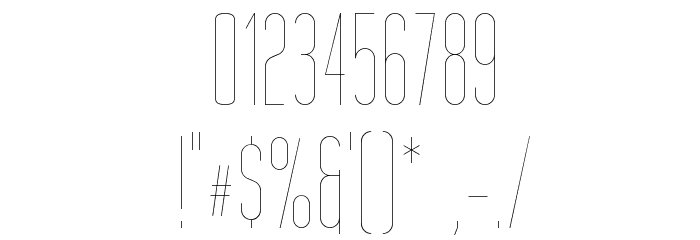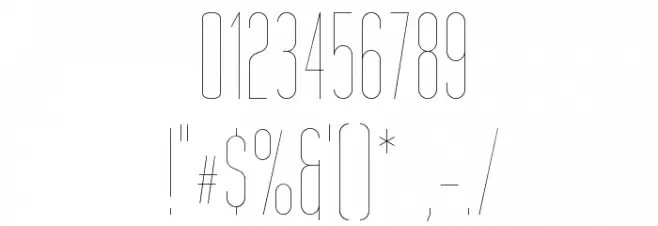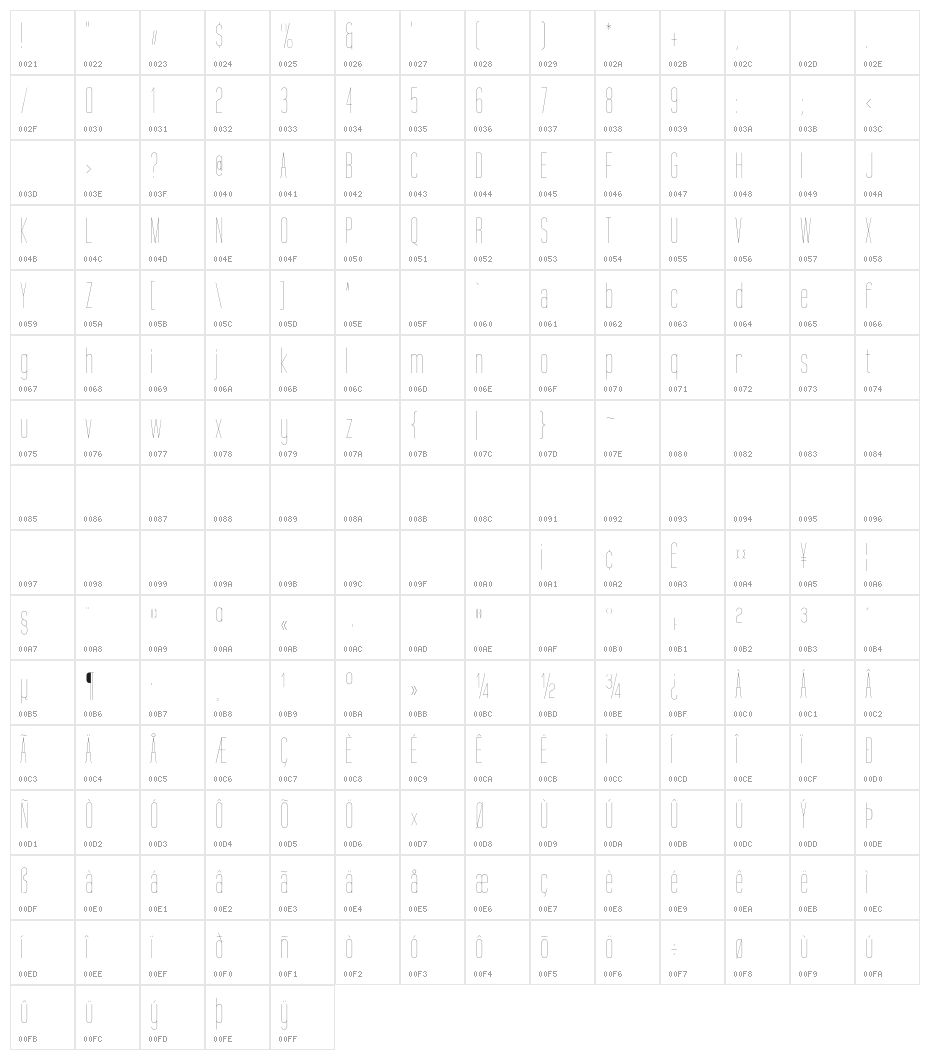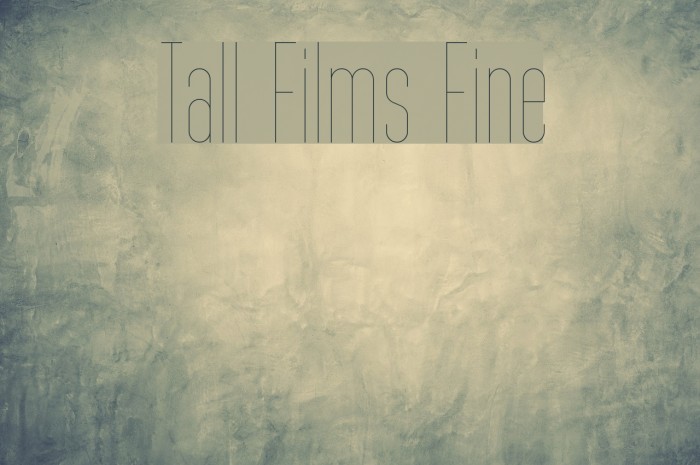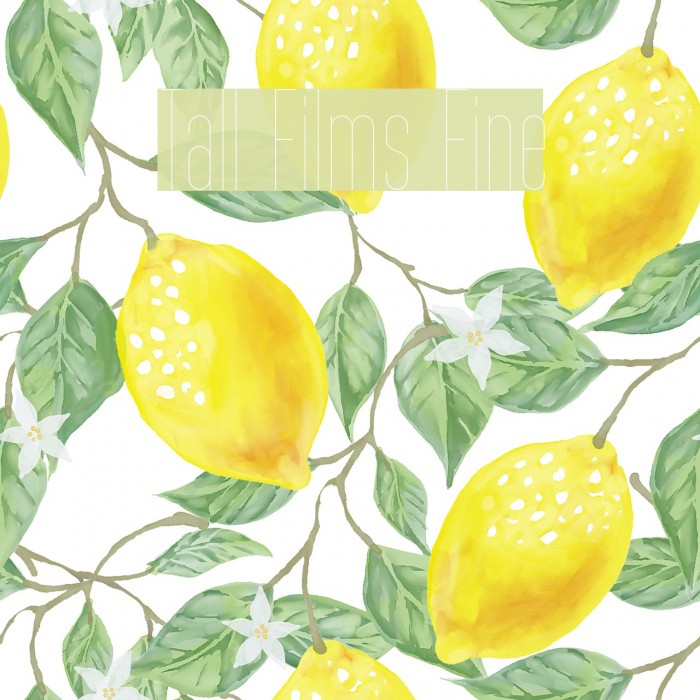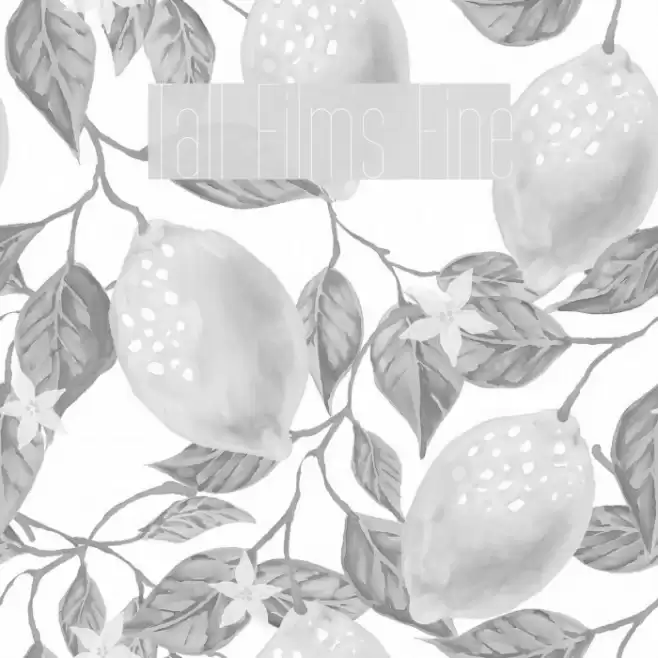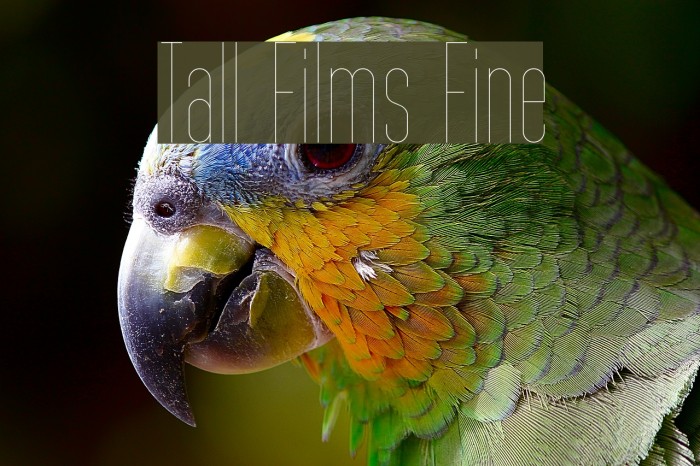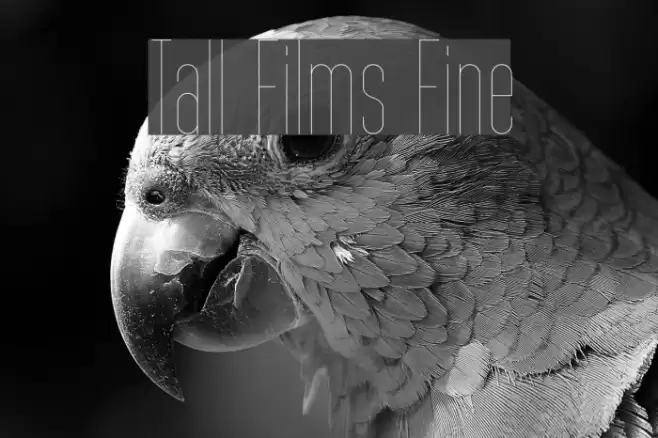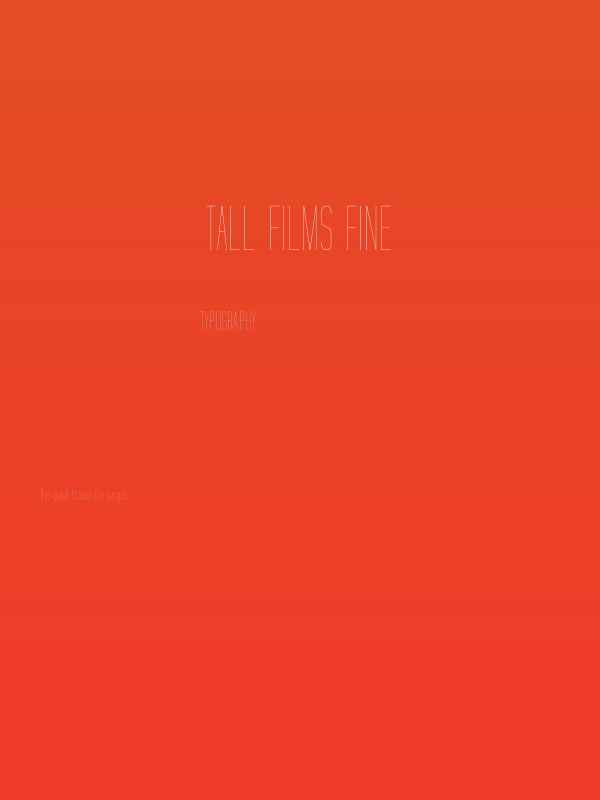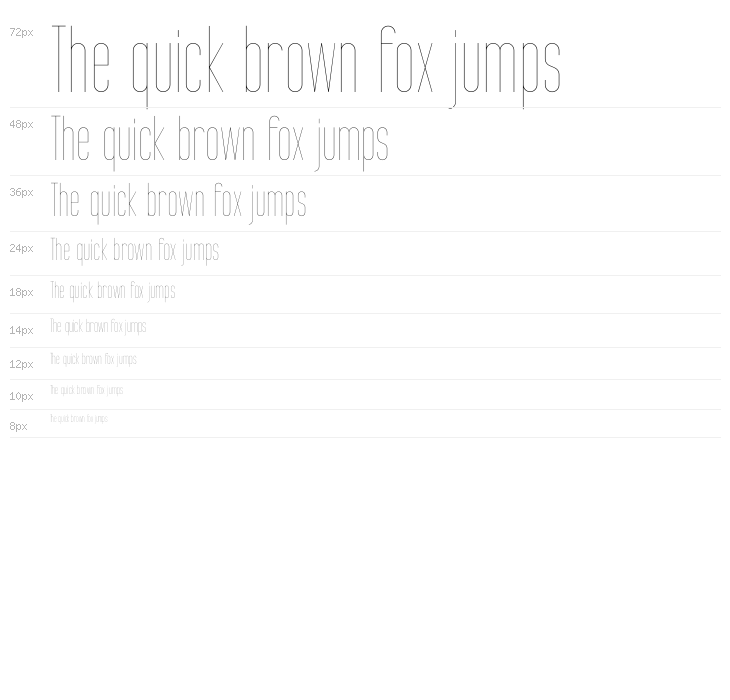
Tall Films Fine Font
Tall Films Fine Description
This font features an ultra-thin and elongated design, characterized by its tall, narrow letters that convey a sense of elegance and modernity. The uppercase and lowercase letters maintain a consistent height, creating a uniform appearance. The numerals and special characters are designed to match the slender and sleek style of the alphabet, ensuring a cohesive look across all text elements. The font's minimalist aesthetic makes it suitable for contemporary design projects, where a clean and sophisticated look is desired. Its delicate lines and refined structure make it ideal for use in high-end branding, fashion magazines, and luxury product packaging.
| Proposed Projects | Ideal for luxury branding, fashion editorials, minimalist design projects, and high-end product packaging. |